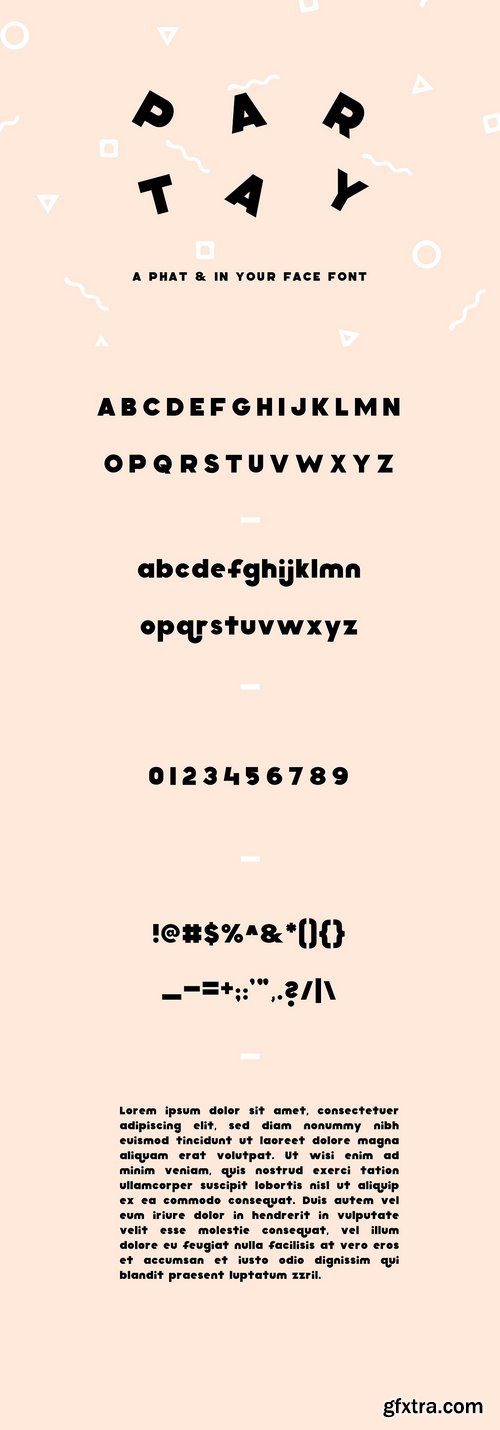
CM - PARTAY - BIG BOLD SANS SERIF 1553079
A handcrafted sans serif font that is phat and in your face. Extremely bold but also playful and beautiful. Perfect for all purposes but especially for headlines and display purposes. Pairs well with script fonts.